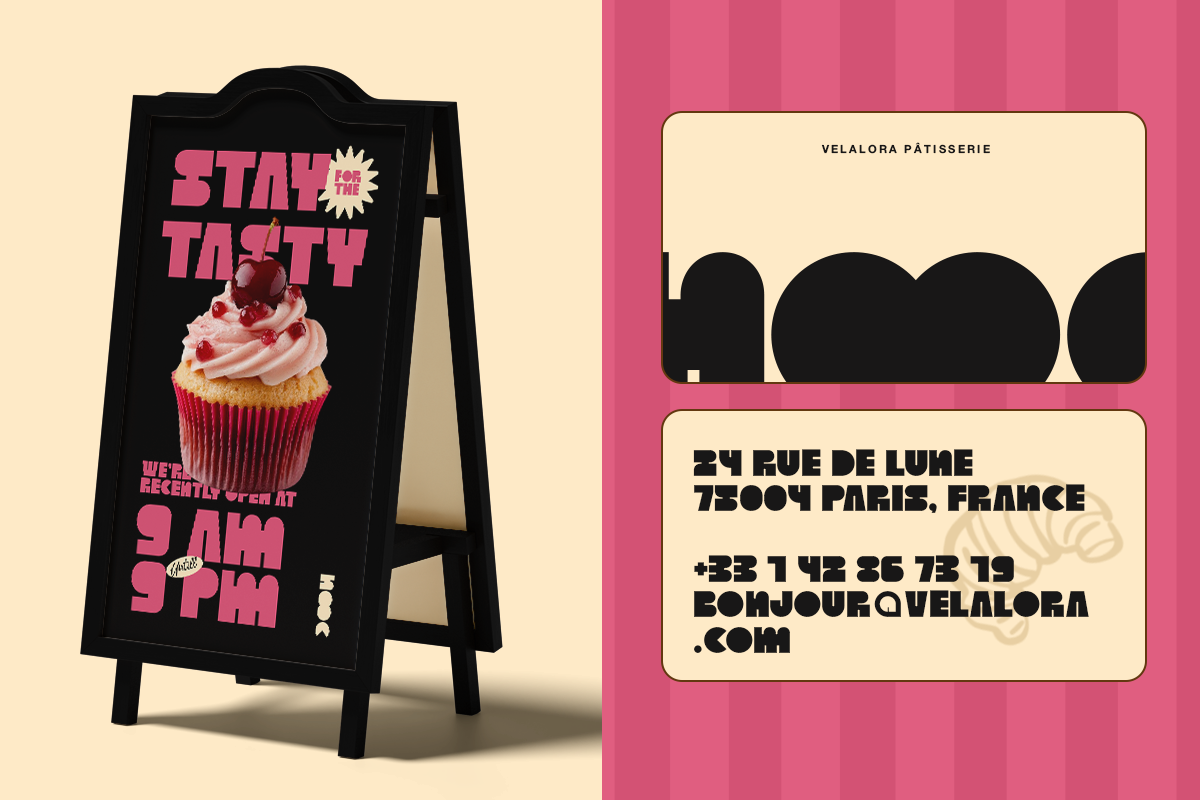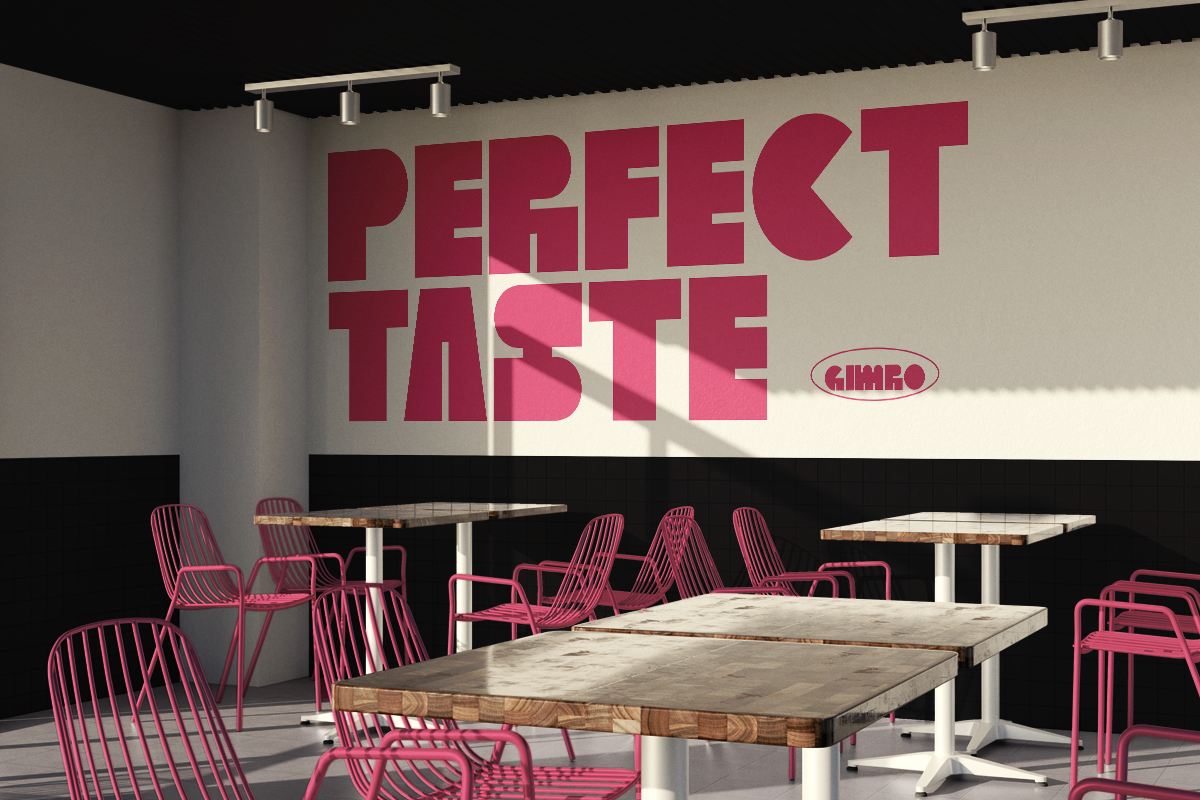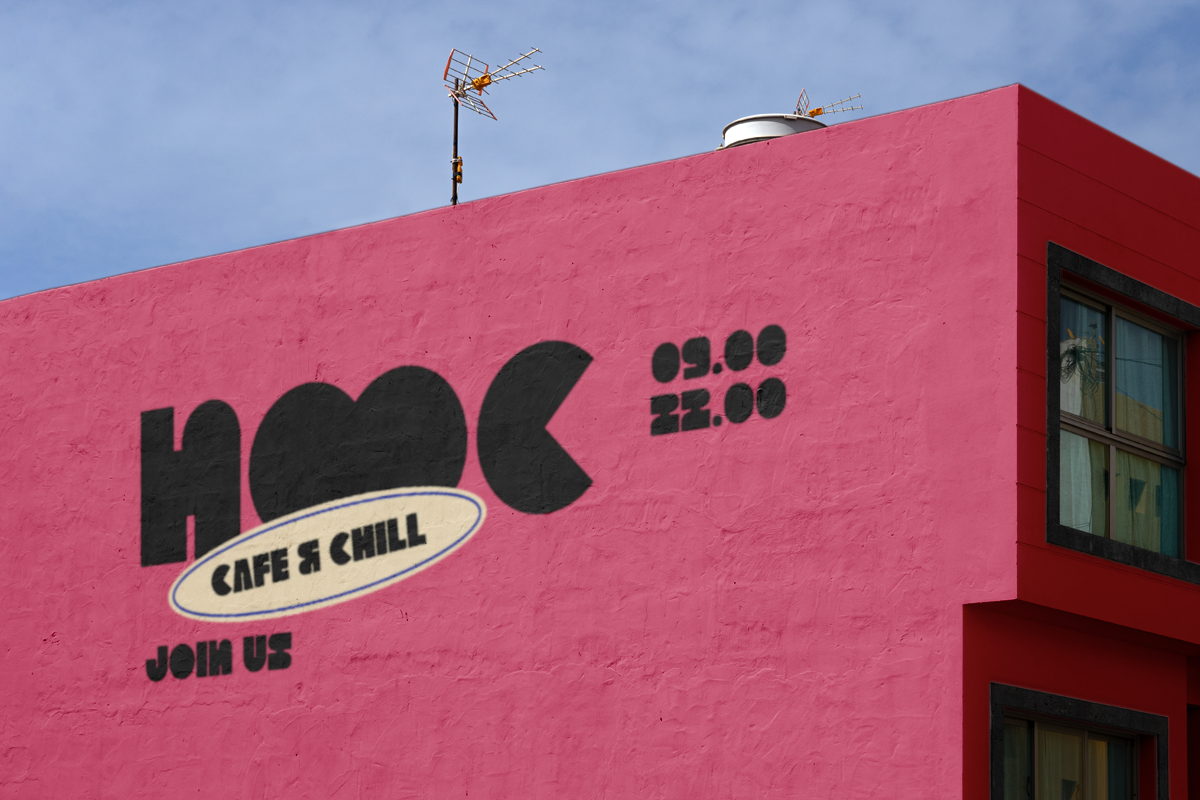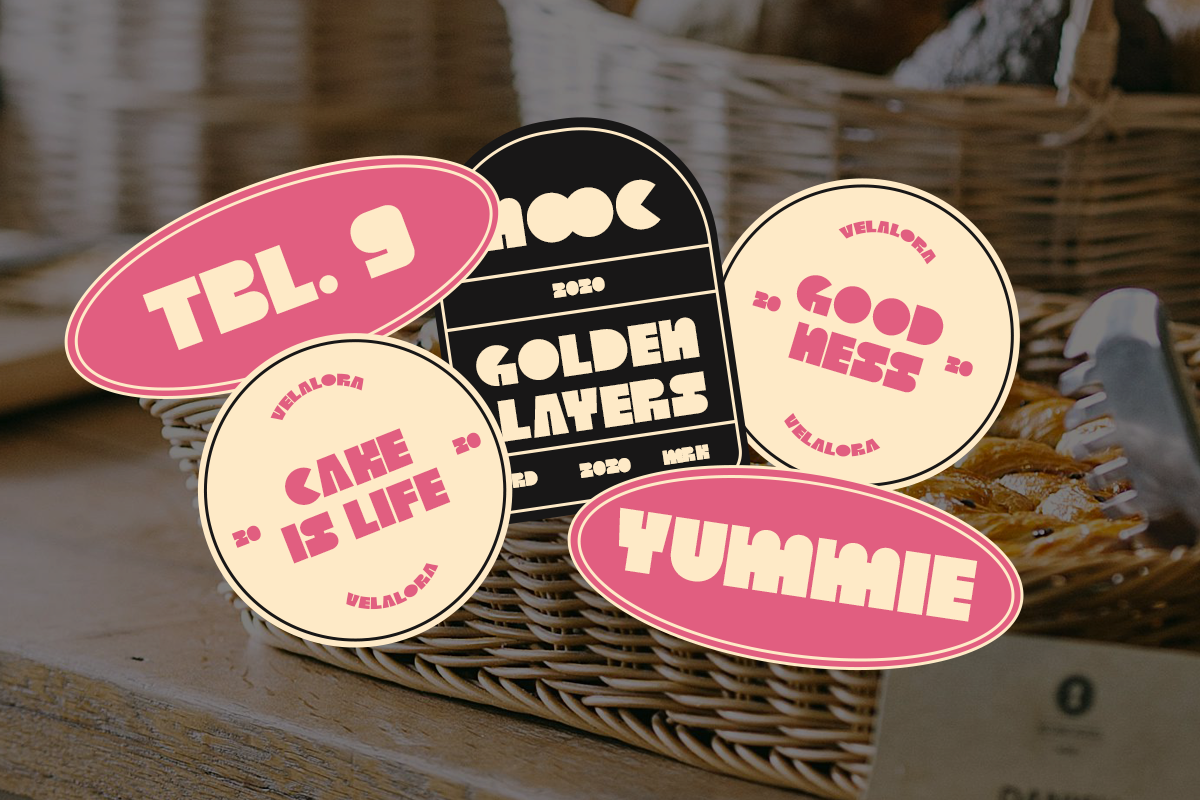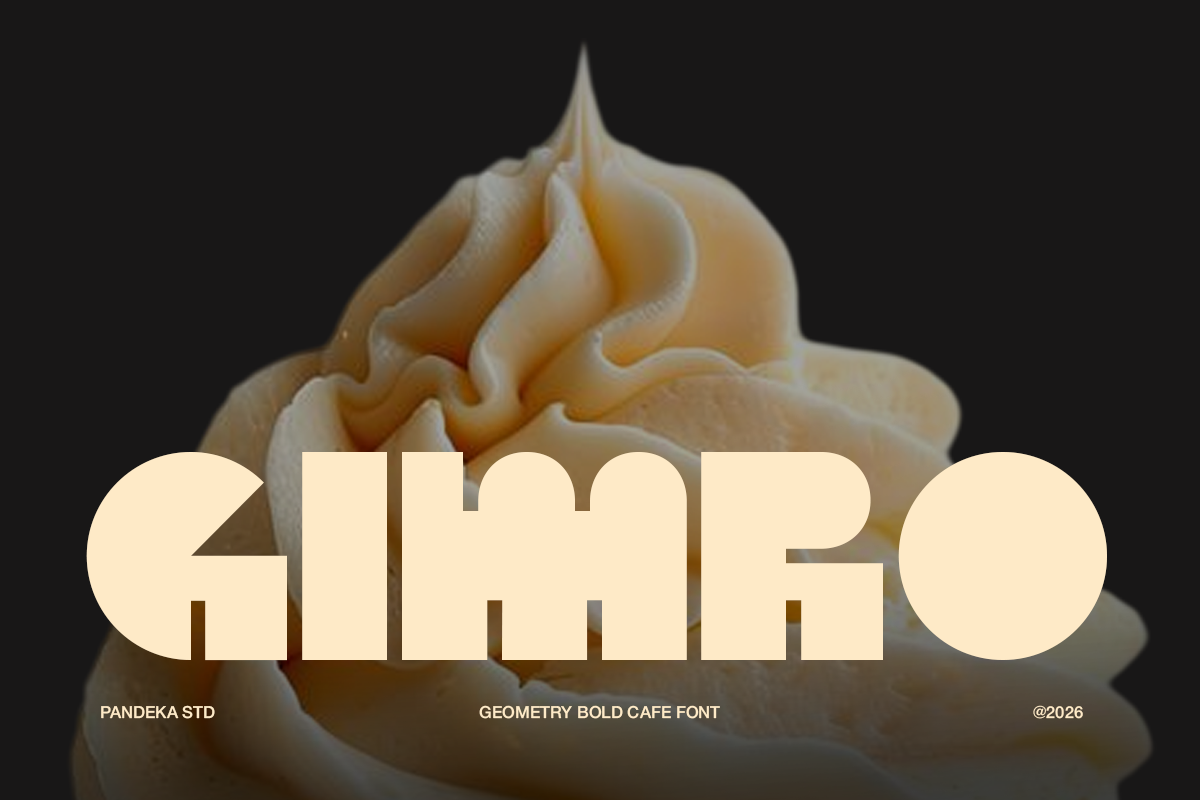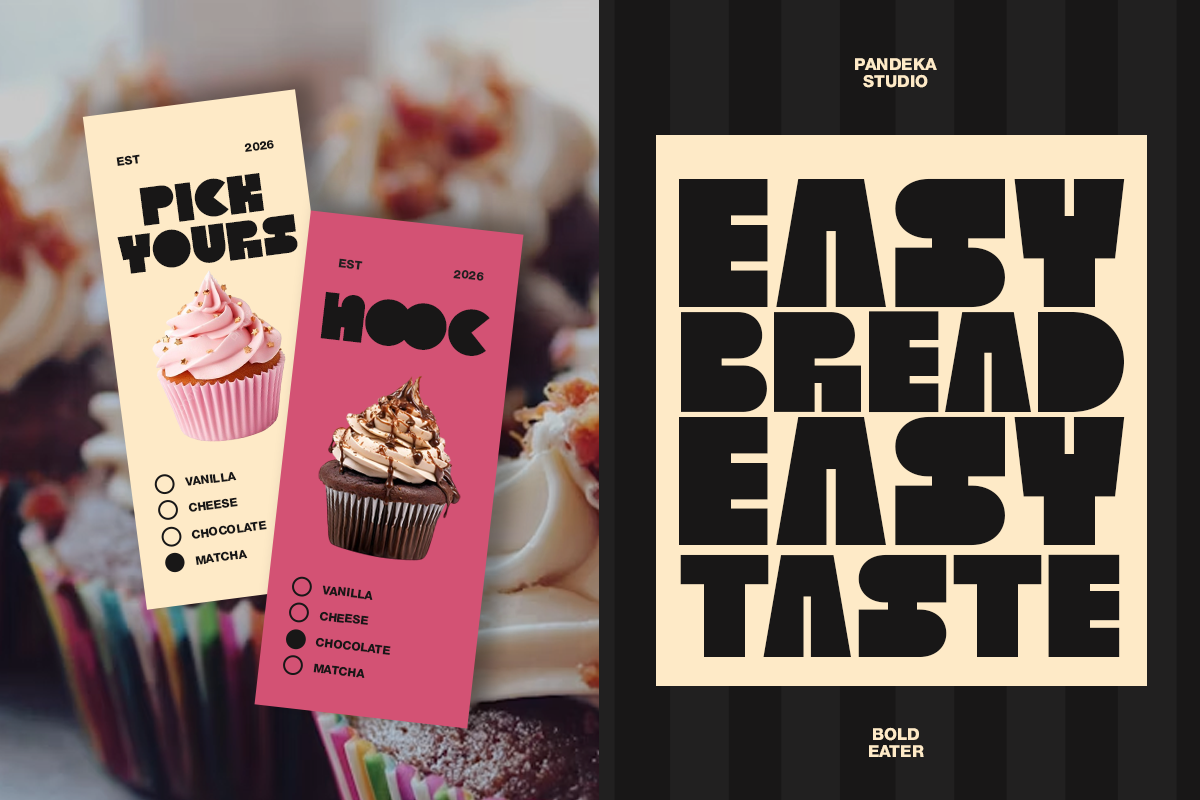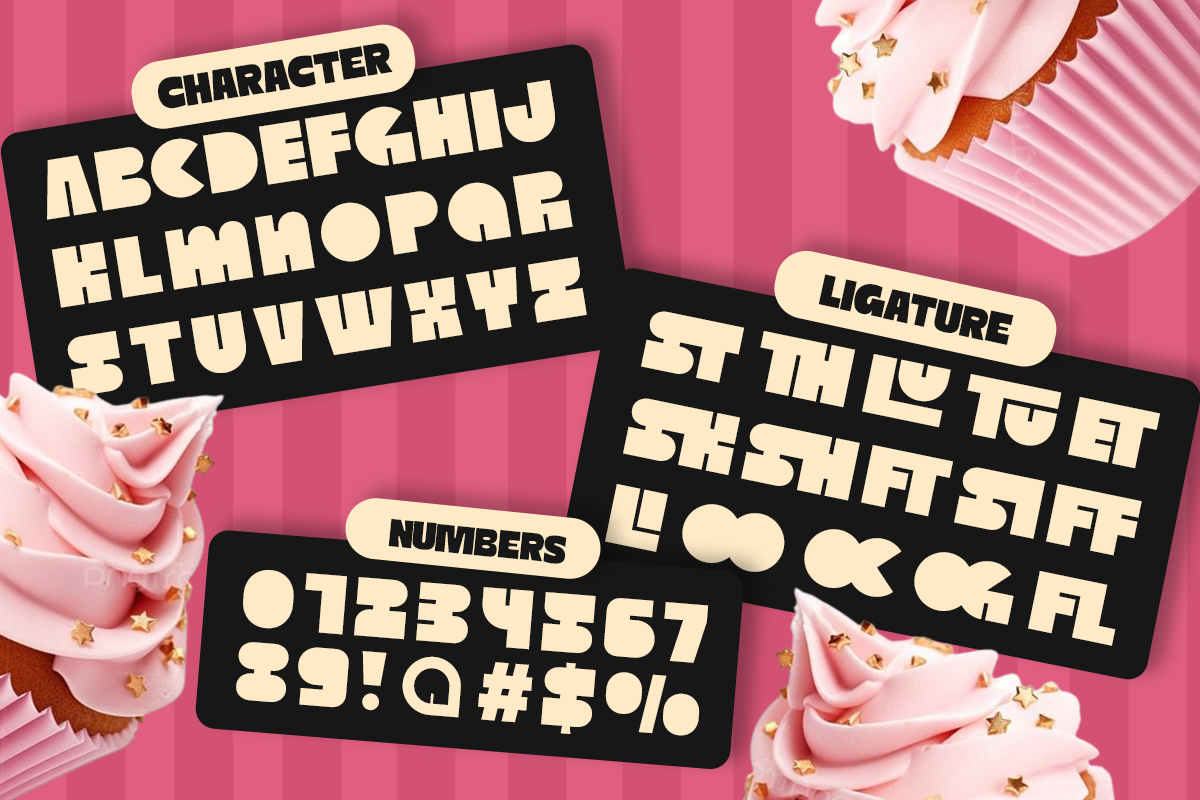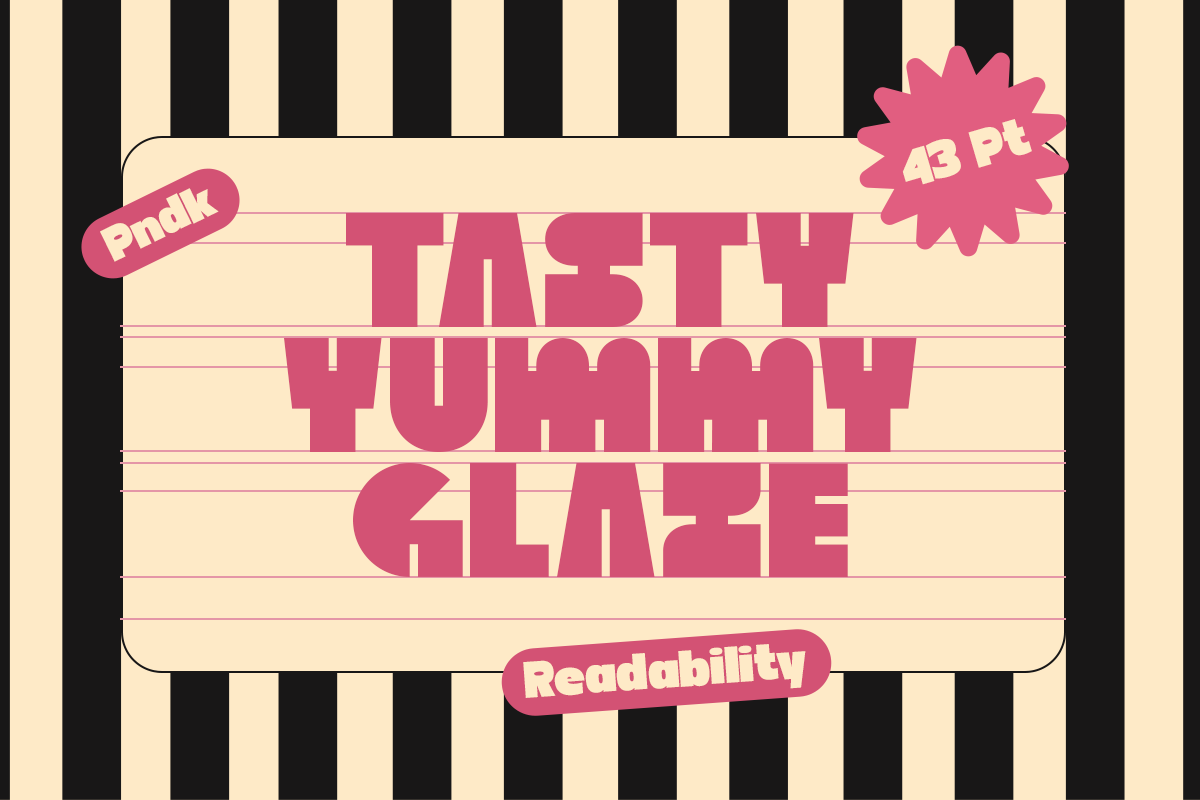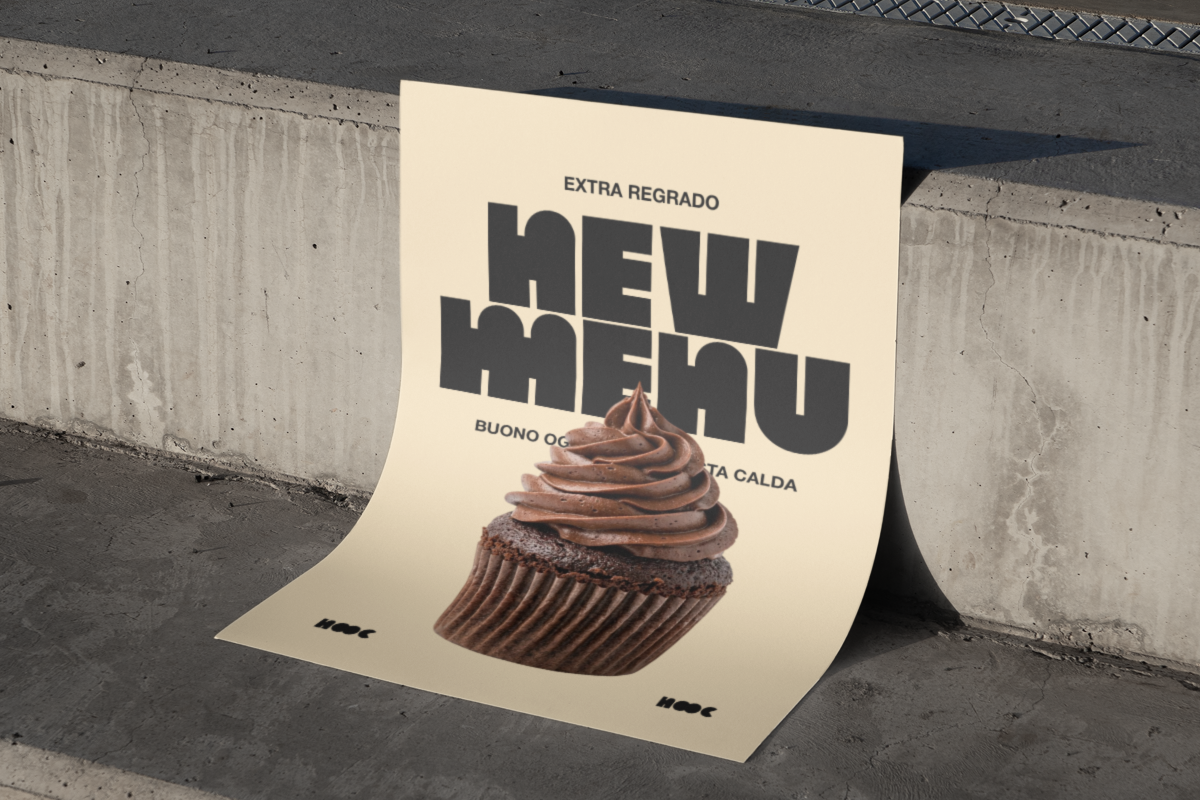
Gimro - Bold Geometric Cafe Font
Gimro is a bold geometric cafe font designed with thick letterforms, rounded geometric shapes, and a clean modern aesthetic that instantly stands out. Featuring 11+ unique ligatures, it creates smooth and distinctive letter combinations, making it perfect for café branding, coffee shop identities, dessert packaging, menu boards, product labels, posters, signage, and contemporary food display projects. Its bold construction delivers excellent readability while bringing a fun and memorable personality to every design.
Available in 1 style: Regular, Gimro comes with multilingual support and versatile features for a wide range of creative applications. Whether you're designing logos, coffee packaging, social media graphics, advertising materials, promotional campaigns, bakery brands, or modern café concepts, Gimro helps create a strong and inviting visual identity with a bold geometric character.
Full Character Set: Uppercase, lowercase, numbers, symbols, and punctuation
11+ Unique Ligatures